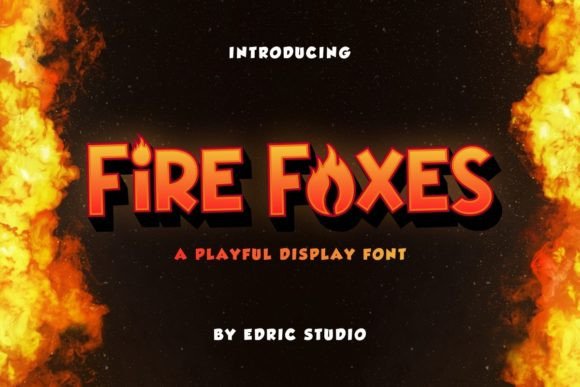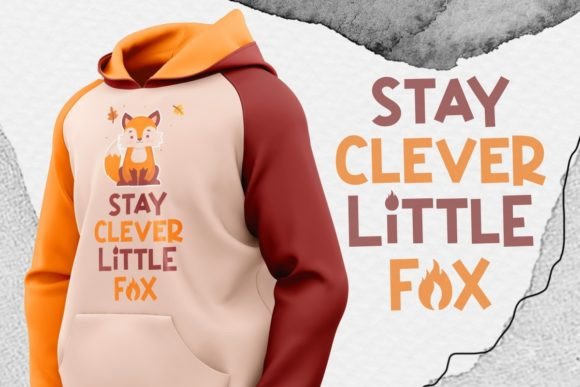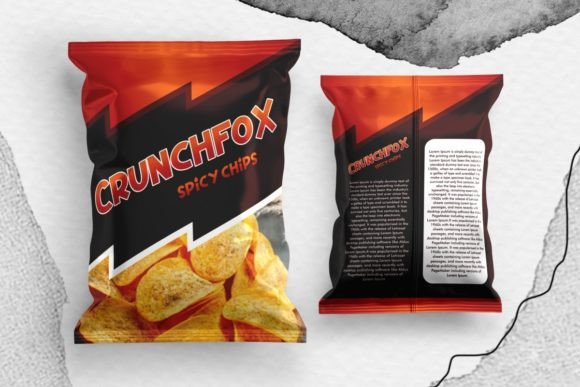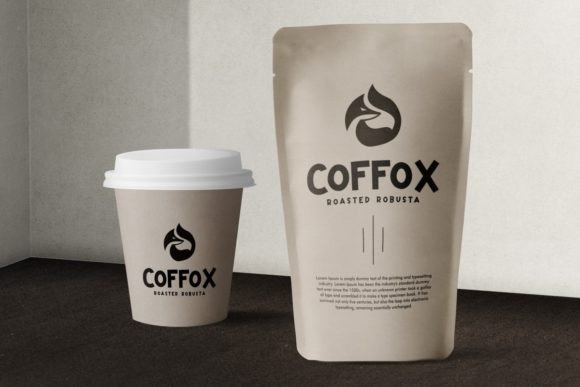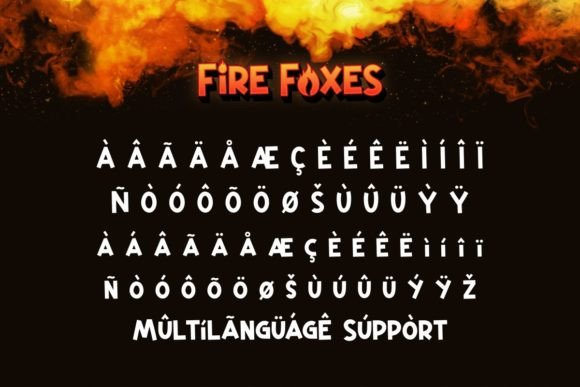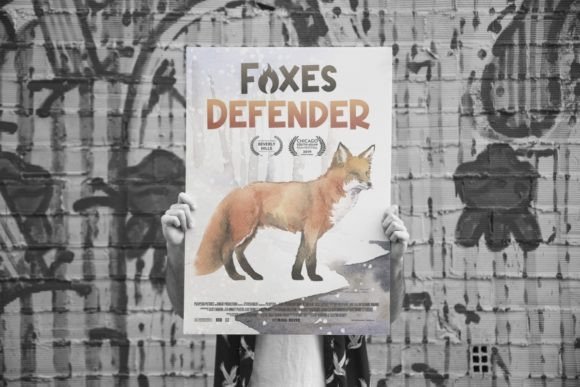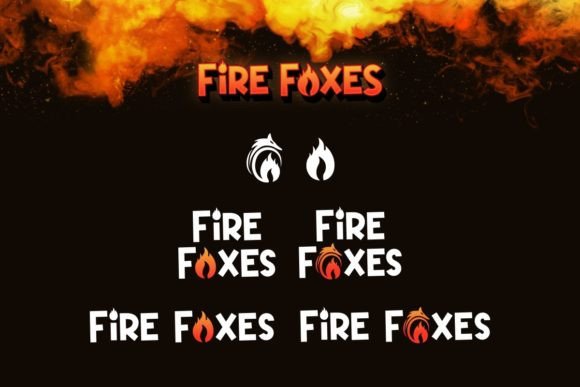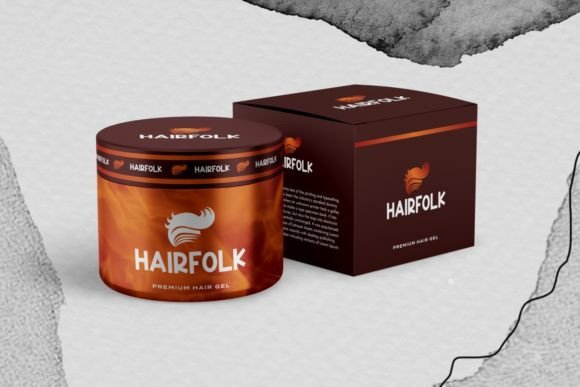
Fire Foxes Font
Fire Foxes Font is a playful display font inspired by fox cartoons on several comics, uniquely combined with the fire effect. You can use this font with a cool and thick lettered appearance for designs related to cartoons, children’s games, coffee shops, headlines, hoodie designs, logos, movies, packaging product, poster or banner design, price tags and many more!